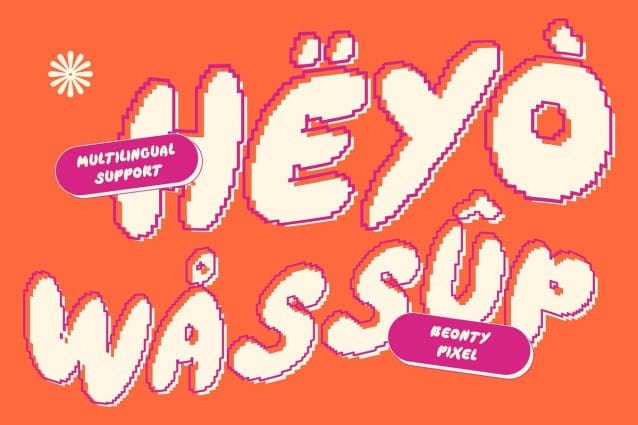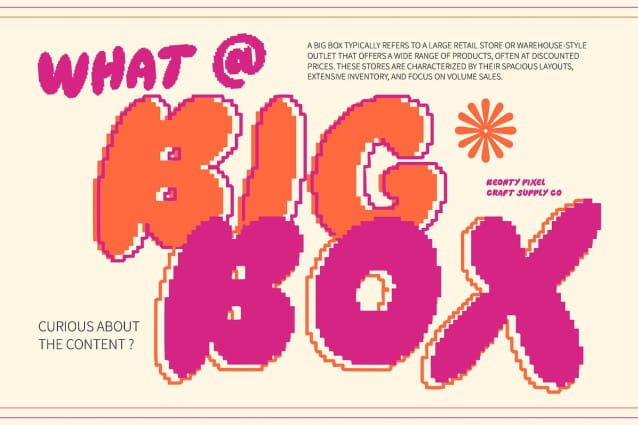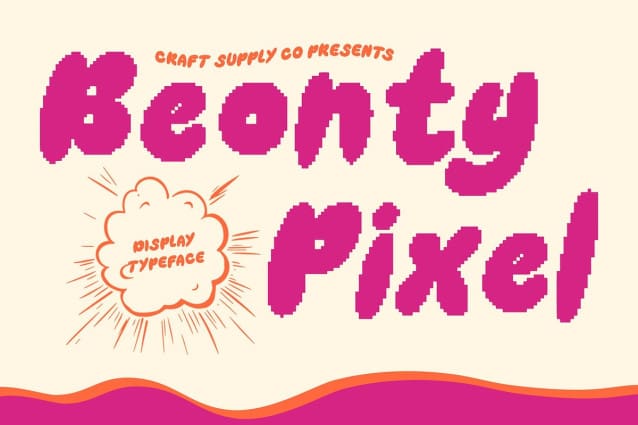
Beonty Pixel Font
Beonty Pixel Font is a bubble display font that exudes a cute, funky, and cheerful vibe. Its rounded, playful shapes are enhanced by a retro pixel effect, making it perfect for designs that want to capture attention and spread joy.
A Fun Fusion of Bubble Shapes and Pixel Texture The font’s soft, rounded letterforms, paired with the pixel effect, create a unique blend of nostalgia and modern playfulness. This combination makes Beonty Pixel an ideal choice for playful branding, vibrant children’s designs, and any project that aims to evoke fun and excitement.
Perfect for Fun Designs and Children’s Projects With its bubbly and friendly design, Beonty Pixel adds a vibrant, joyful energy to posters, children’s materials, and branding. The pixelated effect enhances the funky, retro feel, ensuring your designs are visually appealing and full of personality.
Joyful and Eye-Catching Beonty Pixel brings a lively, cheerful character to any project. The mix of bubble shapes and pixel texture creates a bold, funky style, ensuring your designs stand out with a unique, joyful aesthetic.
Conclusion Beonty Pixel is the perfect font for designers seeking a cute and funky typeface with a pixel twist. Its playful shapes and retro digital effect make it ideal for fun, vibrant designs, children’s projects, and energetic branding.